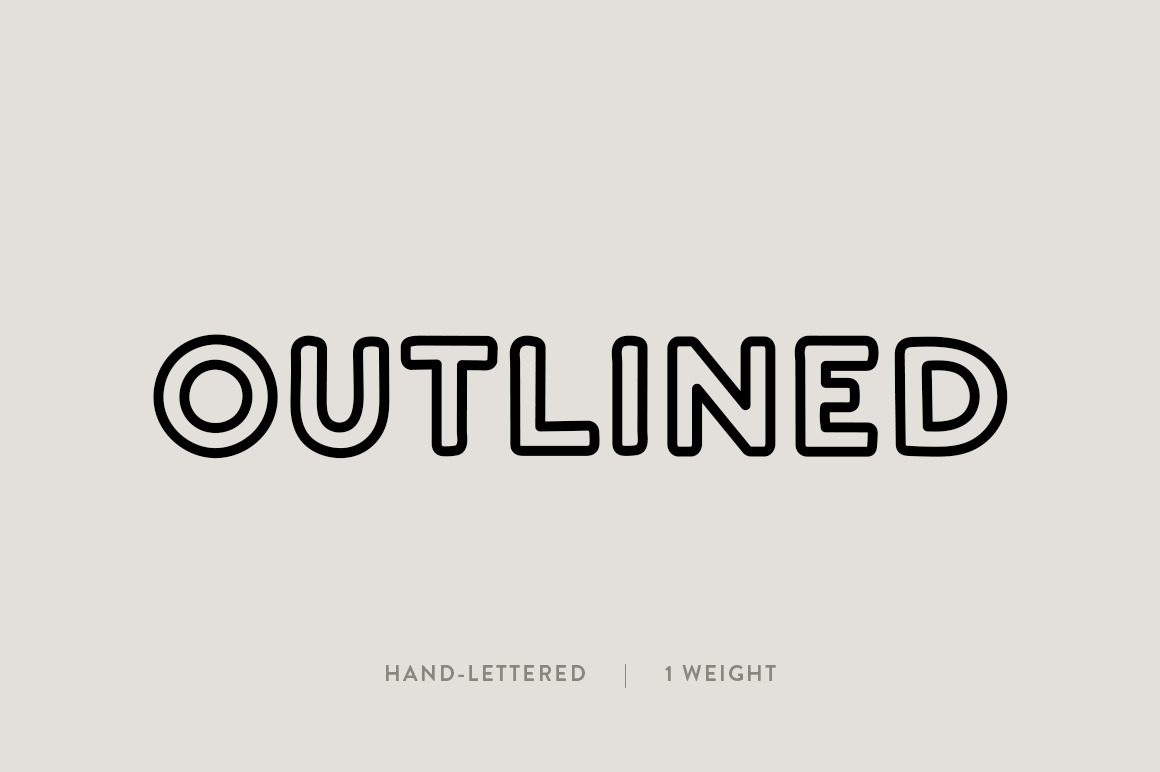
Outlined: A Hand-Lettered Font
The Outlined Font
Outlined pulls from the shapes of the previous hand-lettered font I created, Sandarna, which was inspired by a trip to Sweden and a nighttime dip in the Baltic Sea. The font creates a timeless feel while tipping its cap to the past with its vintage-inspired lines. From afar, the crisp lines will fool you but zoom in and you'll see a nice organic wave within the letters. With its simple feel and touch of organic, this font is meant to be versatile. It is perfect for all projects that need anything from a naturally bold or a minimalistic thin style.